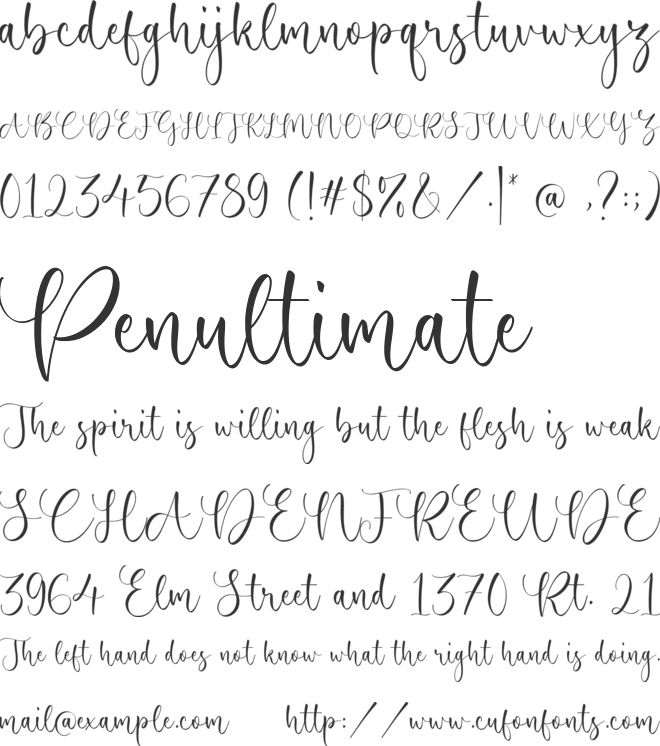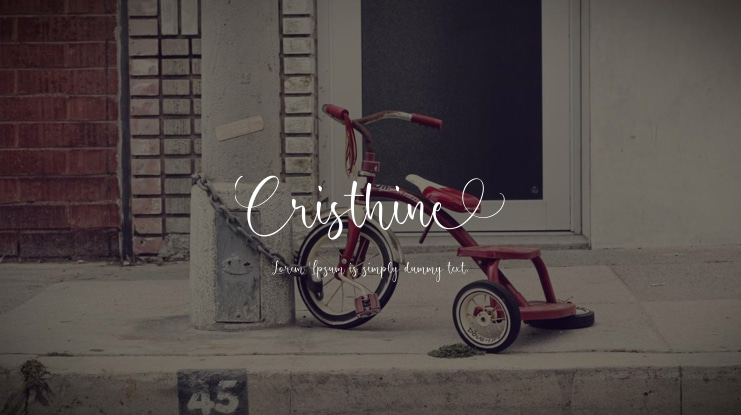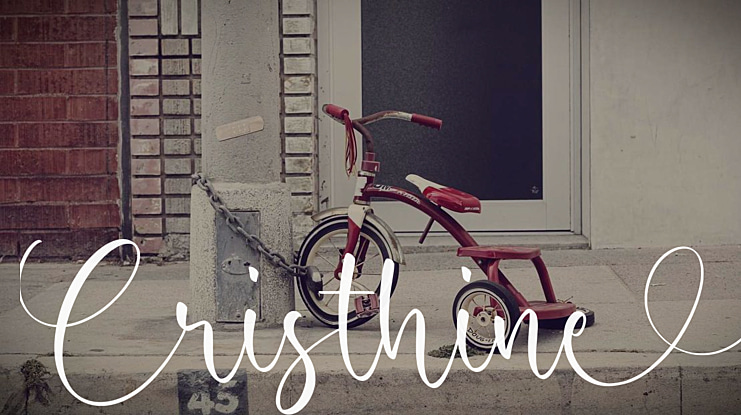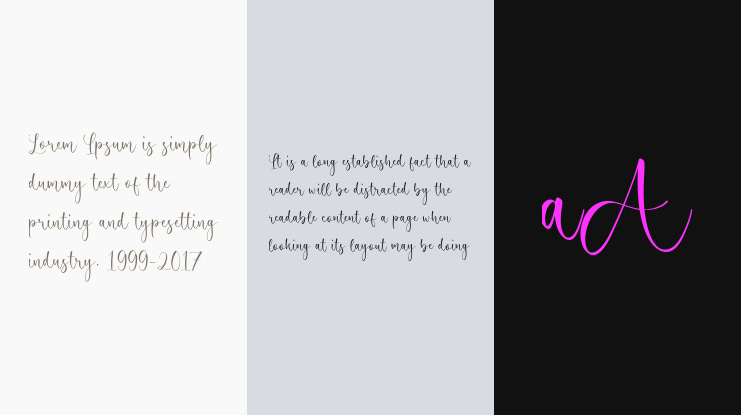
Cristhine Font
The Cristhine Font is a contemporary and stylish handwritten script font that will add a welcoming and cozy atmosphere to your business. Discover the font's charm and take advantage of its magical qualities.
Cristhine is an ideal choice for various applications such as product packaging, branding projects, magazine layouts, social media posts, weddings, or simply to make a statement against any background.
- Complete set of standard alphabet and punctuation marks
- Multilingual support, allowing for diverse language expressions